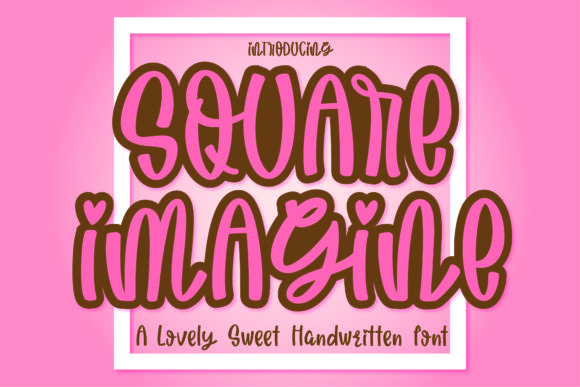
Unleash your creativity with Square Imagine, a script font family that exudes charm and playfulness. Inspired by the joy of Christmas, this font is meticulously crafted to capture the spirit of the season, making it the perfect choice for adding a touch of festive cheer to your designs.
With its graceful curves, whimsical swashes, and elegant serifs, Square Imagine effortlessly adds a touch of whimsy and sophistication to any project. From cheerful Christmas cards and heartwarming holiday invitations to festive social media posts and eye-catching marketing materials, this font is sure to leave a lasting impression.
This font family is incredibly versatile, featuring a range of weights and styles to suit a variety of design needs. Whether you're creating a whimsical children's book, a festive holiday poster, or a charming online store, Square Imagine adapts seamlessly to your vision, bringing your ideas to life with its unique personality.
With its ability to evoke a sense of joy and warmth, Square Imagine is the perfect font for capturing the magic of the Christmas season. Let your creativity soar as you explore the endless possibilities of this remarkable font, and make your holiday designs truly unforgettable.